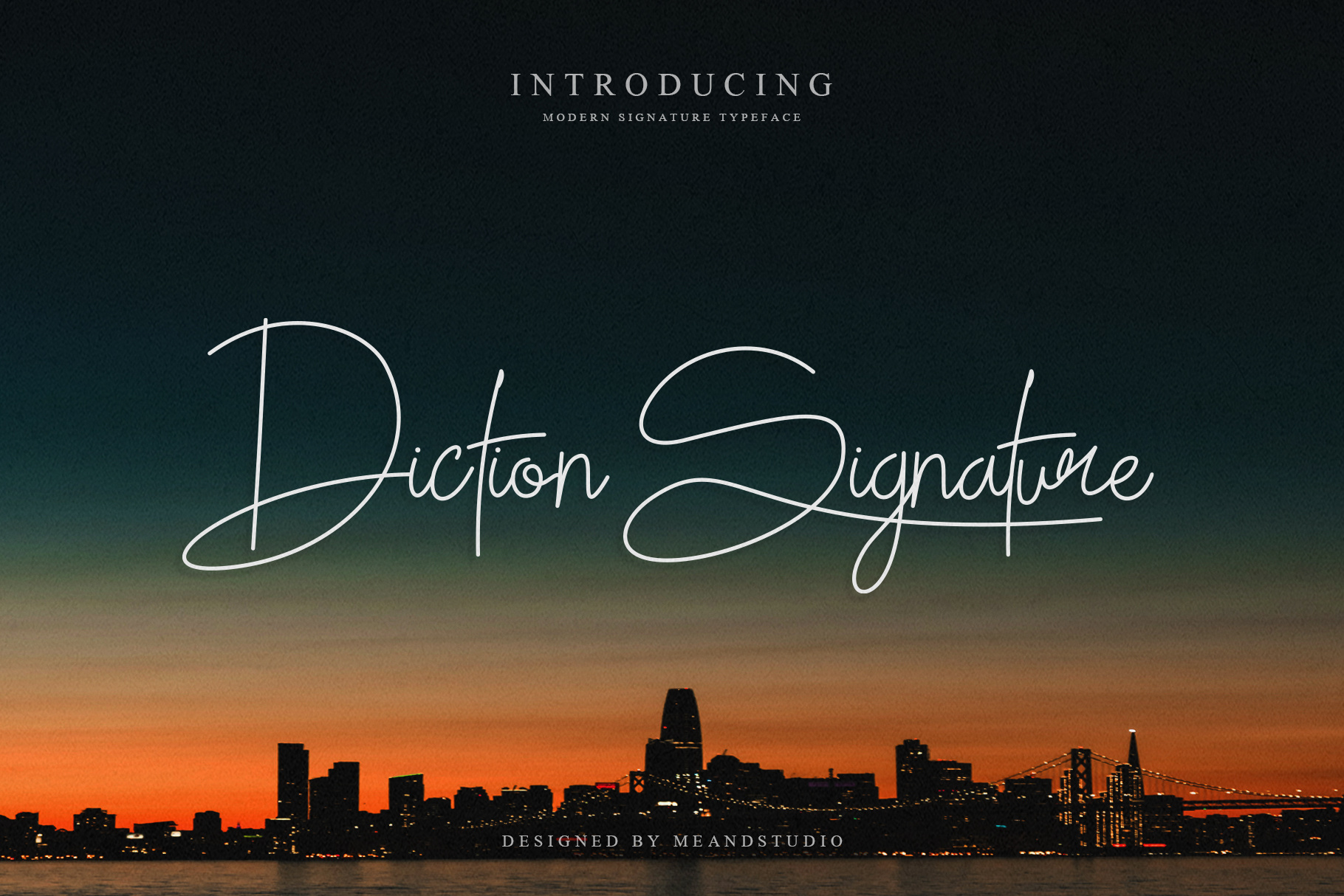
Diction Signature – A Luxurious Handwritten Typeface
Designed by MEANDSTUDIO,
Diction Signature is a modern script font that exudes elegance and sophistication. Inspired by natural handwriting, this typeface is perfect for branding, logos, invitations, product packaging, and stylish signature designs. With smooth strokes, delicate curves, and exquisite ligatures, Diction Signature offers a refined and professional touch to any project. Elevate your typography with this stunning and versatile script font.
This preview showcases Diction Signature, a refined and stylish handwritten font, in a high-end fashion photography branding concept. The elegant script seamlessly blends with the bold serif typography, creating a sophisticated and professional look. Perfect for luxury branding, fashion portfolios, and personal signatures, Diction Signature exudes confidence and exclusivity. Its fluid strokes and graceful ligatures add a touch of modern elegance, making it an ideal choice for creative professionals and high-fashion industries.
This preview highlights Diction Signature, a luxurious and sophisticated handwritten script, showcased in a high-end perfume branding concept. The fluid and elegant strokes of the font add an exclusive, premium feel, making it perfect for luxury products, beauty packaging, and stylish branding. The combination of modern calligraphy and a refined serif typeface enhances the sense of elegance, ideal for brands that exude class and exclusivity. Whether for product labels, editorial designs, or upscale advertising, Diction Signature delivers a timeless and graceful touch.
Diction Signature is an elegant script font with a luxurious handwritten feel. This preview showcases its refined and sophisticated style, perfectly complementing high-end branding. The fluid strokes and graceful letterforms exude exclusivity, making it an ideal choice for logos, fashion labels, and premium product packaging. Paired with a classic serif font, Diction Signature enhances the visual appeal of luxury branding, creating a timeless and stylish impression. Perfect for designers looking to add a touch of elegance and class to their projects.
The Diction Signature font is showcased in this elegant preview, emphasizing its refined and natural handwritten style. Designed to resemble an authentic signature, this font delivers a professional and sophisticated look, making it perfect for legal documents, contracts, and branding. Its smooth, flowing strokes add an element of luxury and personalization, ensuring an exclusive and high-class aesthetic. Ideal for designers seeking a stylish and realistic signature font for their projects.
The Diction Signature font is elegantly displayed in this preview, capturing its fluid and expressive handwritten style. Its natural strokes and organic flow create a personal and artistic touch, making it ideal for inspirational quotes, branding, and editorial designs. Set against a dynamic motion background, the font exudes a sense of movement and ambition, reinforcing its suitability for projects that evoke passion, motivation, and creativity. A perfect choice for those seeking a stylish yet authentic signature script.
The Diction Signature font shines in this elegant wedding invitation design, showcasing its refined and romantic handwritten style. The fluid strokes and graceful curves add a personal and sophisticated touch, making it perfect for wedding stationery, branding, and luxury designs. Set against a dark, floral-themed background, the font enhances the overall aesthetic, exuding class and exclusivity. This preview highlights the font’s versatility, effortlessly blending modern calligraphy with timeless elegance.
The Diction Signature font takes center stage in this stylish magazine cover design, exuding sophistication and modern elegance. Its flowing handwritten script adds a refined yet contemporary touch, seamlessly blending with the bold typography and structured layout. Ideal for fashion, lifestyle, and editorial branding, this font enhances the overall aesthetic with a personal and luxurious feel. The contrast between its graceful curves and the strong geometric elements creates a visually compelling composition, making it perfect for high-end branding and editorial designs.
The Diction Signature font is a beautifully crafted handwritten script that embodies elegance and sophistication. This preview showcases its full character set, including uppercase and lowercase letters, numbers, symbols, and punctuation, ensuring versatility for various design needs. With built-in multilingual support, it accommodates diverse languages, making it an excellent choice for branding, invitations, editorial designs, and luxury-themed projects. Its refined strokes and natural flow give a distinctive and stylish touch, perfect for those seeking a signature-style font with a modern and artistic appeal.